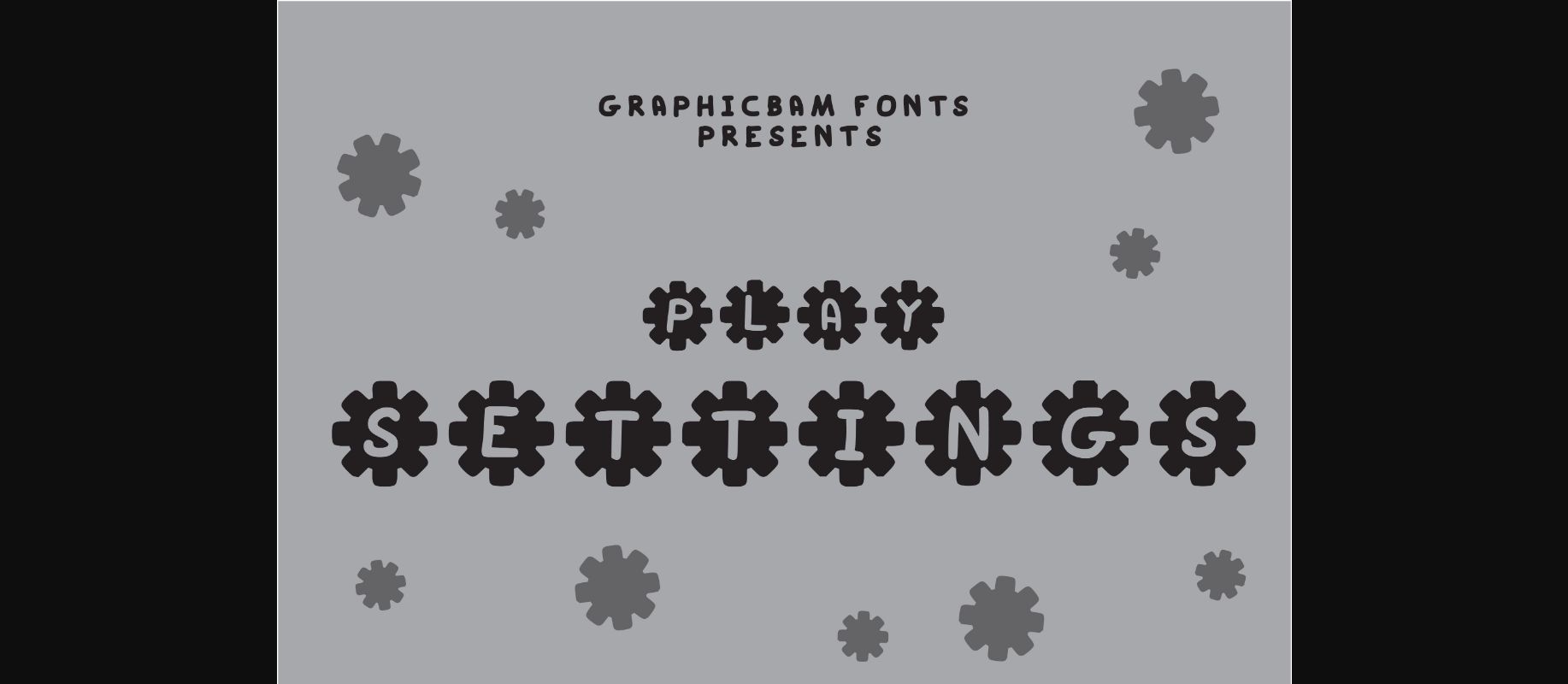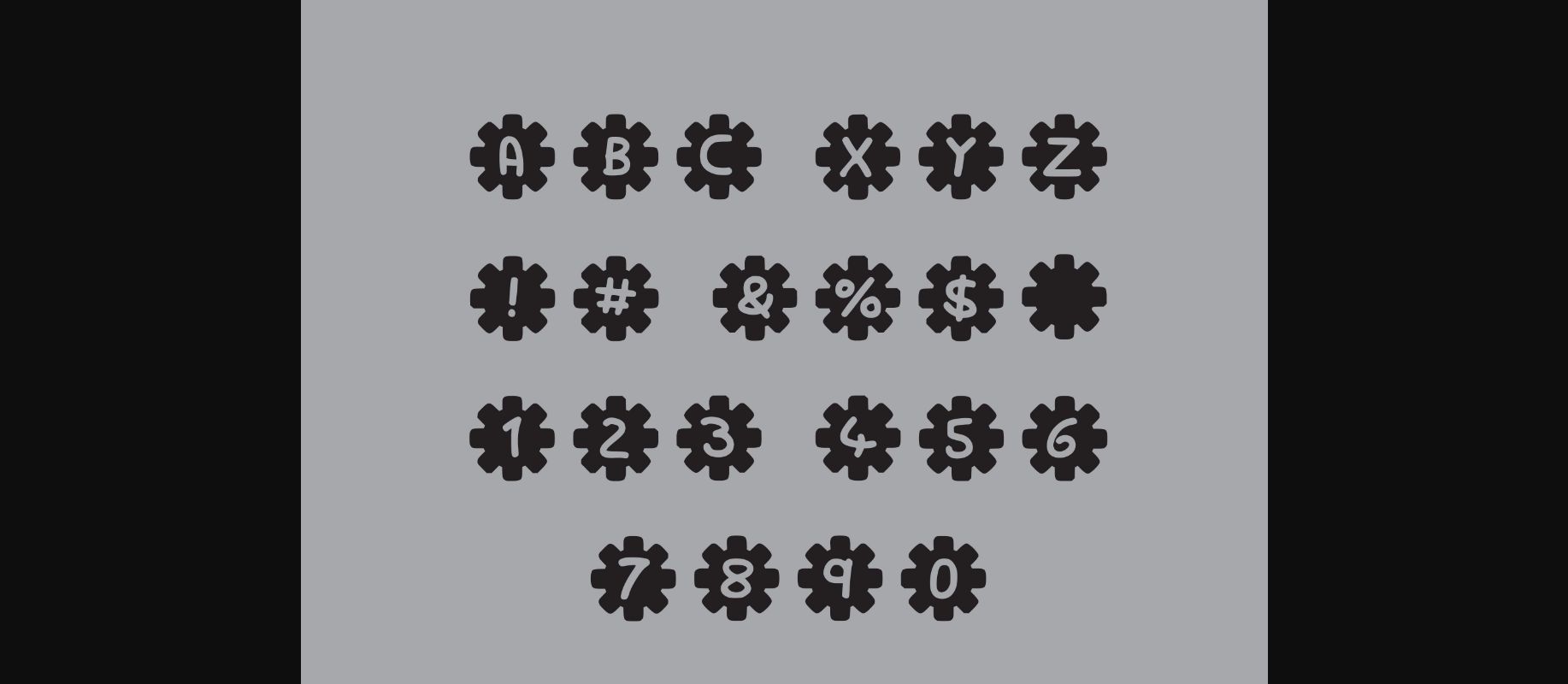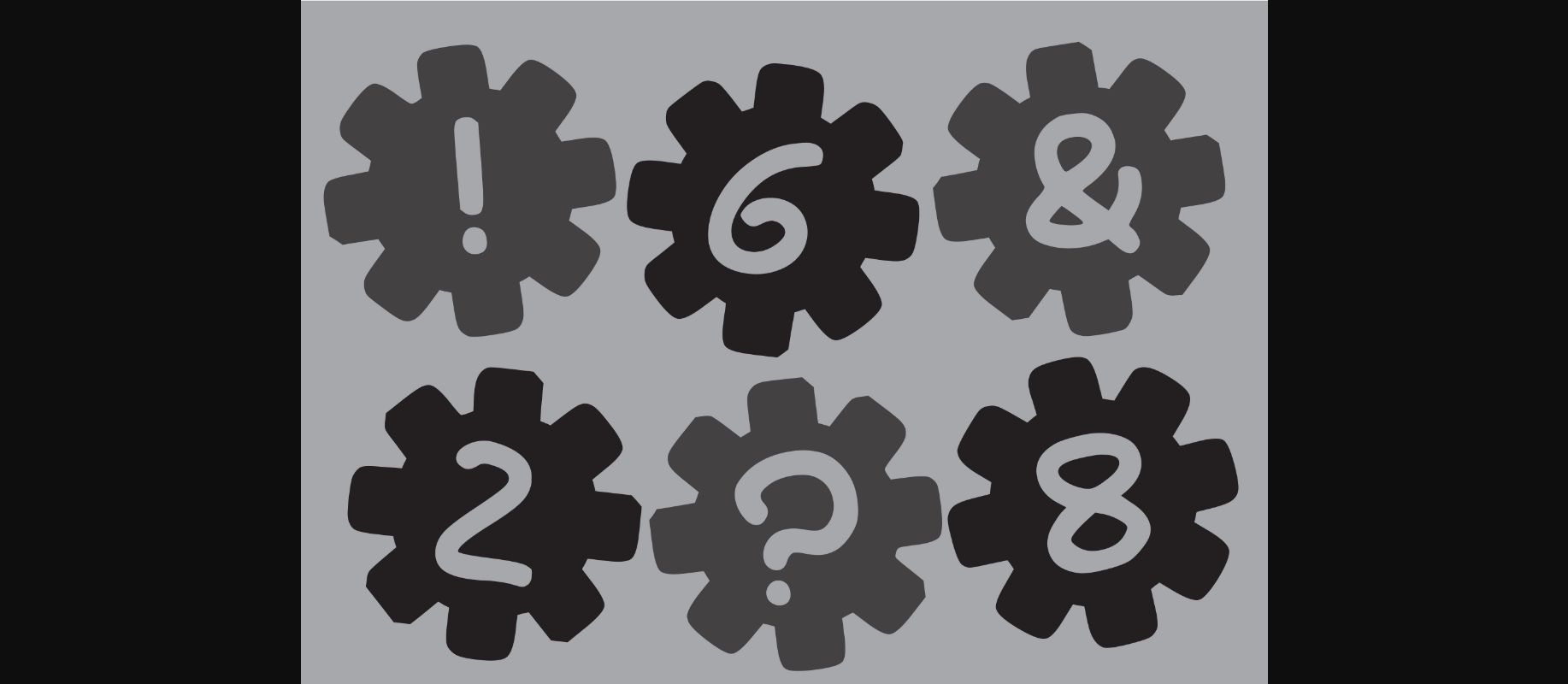
About Play Settings Font
Play Settings is a cool and unique decorative font. Whether you’re using it for crafts, digital design, presentations, or making greeting cards, this font has the potential to become your favorite go-to font, no matter the occasion!